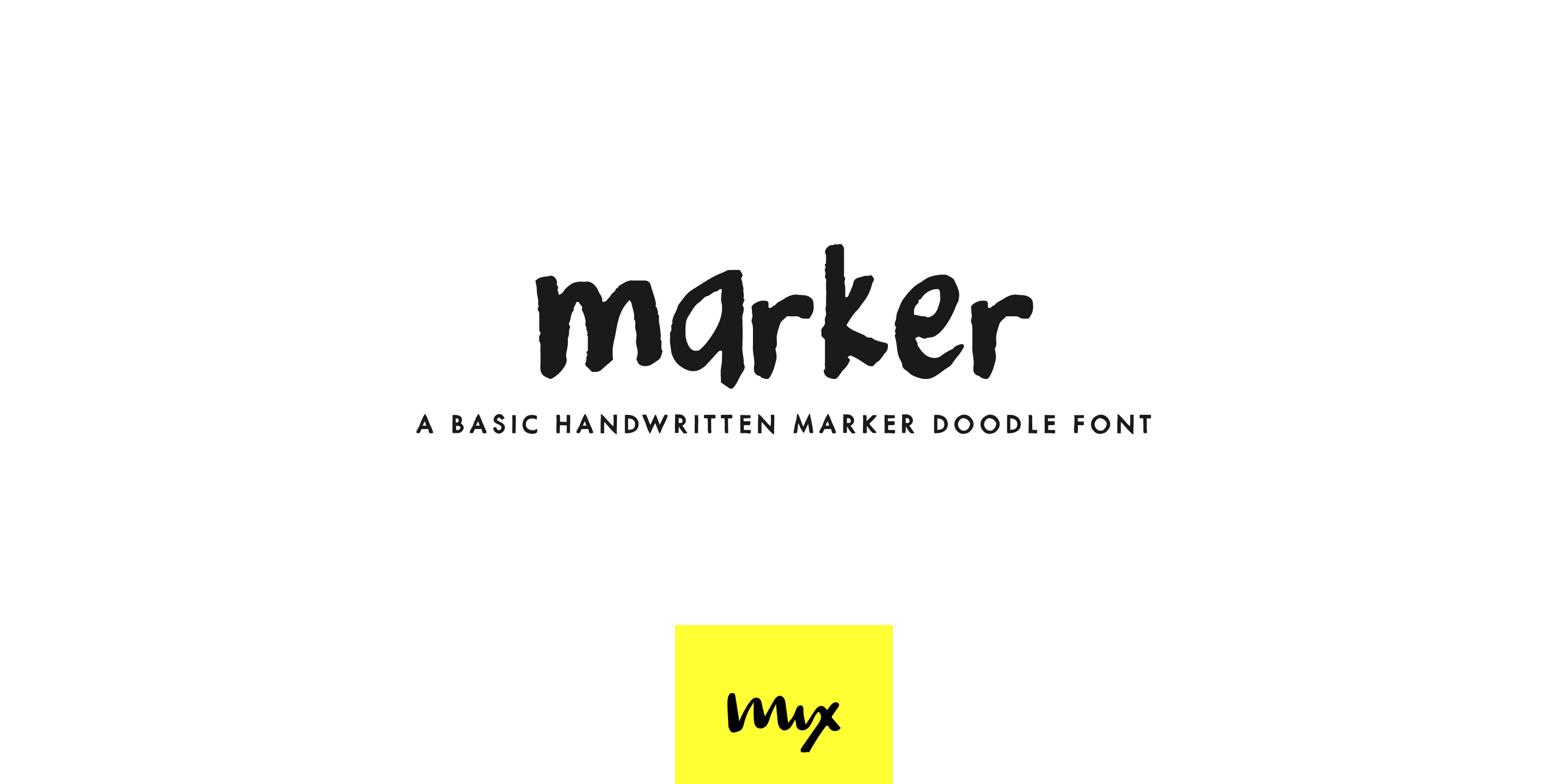
Marker Font is perfect for various applications including casual restaurant signage, children's book titles, creative workshop branding, art supply packaging, educational posters, playful logo designs, handmade craft labels, informal presentations, street art graphics, and creative social media content.
What makes Marker Font so exciting is its authentic recreation of hand-drawn marker lettering that brings immediate warmth and human connection to any design. This approachable typeface features bold, expressive letterforms with natural ink variations and spontaneous character that captures the energy and creativity of hand-lettered signage. The font's friendly character and artistic aesthetic make it ideal for brands that want to convey authenticity, creativity, and approachable personality to audiences who appreciate handcrafted design and personal touch.
Marker Font family includes multiple weights and styles: Light, Regular, Bold, Black, Brush, Condensed, Extended, Rough, and expressively drawn Italic variants. Each family member maintains the font's signature handmade charm while offering different levels of visual impact and stylistic flexibility for diverse creative and casual applications.
The Marker Font Free Download offers designers access to a hand-lettered typeface that excels in creative and casual markets. Whether you're creating artisan brand identities, designing educational materials, or developing approachable marketing campaigns, this font delivers the authentic aesthetic needed to connect with creative communities and families. Its handmade styling and artistic essence make it particularly effective for art studios, educational institutions, and creative small businesses.
Typography enthusiasts will appreciate the natural flow and authentic handwriting characteristics in Marker Font's design. The font features organically drawn letterforms with realistic marker variations, naturally flowing connections, and perfectly balanced proportions that ensure excellent readability while maintaining its handcrafted character. From children's educational materials to artisan product packaging, this typeface maintains its authenticity and creative appeal across all design contexts.
For creative web designers, Marker Font provides outstanding performance in artistic digital environments and educational platforms. The font's technical specifications are optimized for various devices while preserving the natural, hand-drawn edges that define its authentic character. Its versatility makes it suitable for both static creative content and interactive educational experiences.
Creative professionals working in education, arts and crafts, creative services, and family-oriented businesses will find Marker Font to be an indispensable tool for projects requiring authentic visual communication. The font's ability to convey creativity, warmth, and personal touch makes it invaluable for brands targeting creative communities and educational demographics.
Design agencies specializing in creative and educational brands appreciate Marker Font's versatility in creating memorable handcrafted identities.